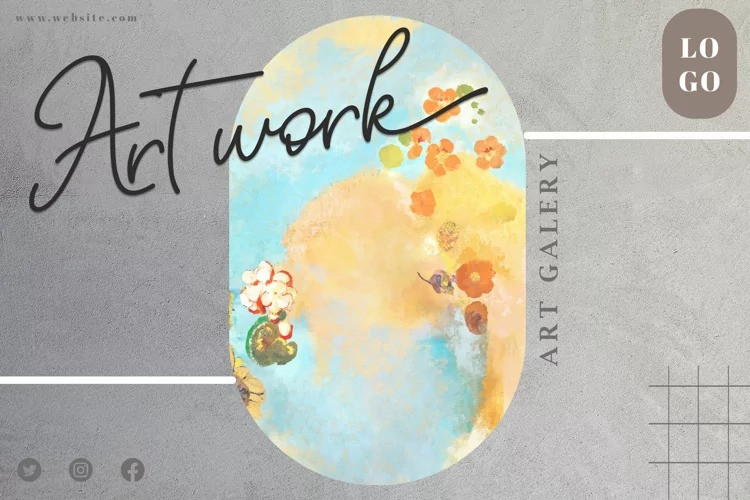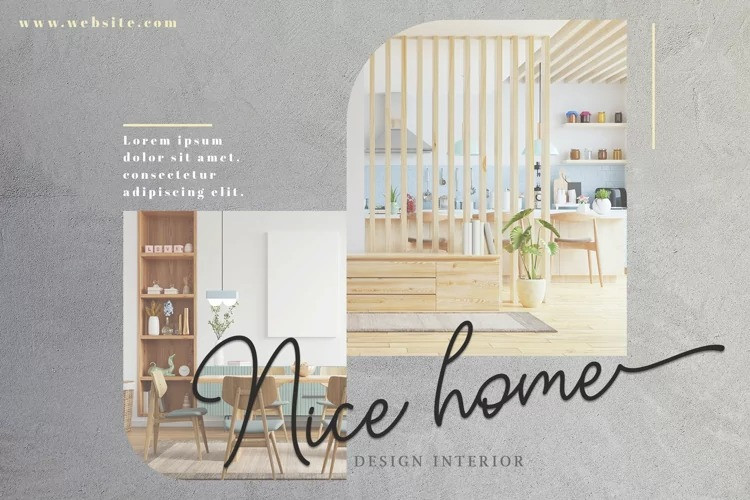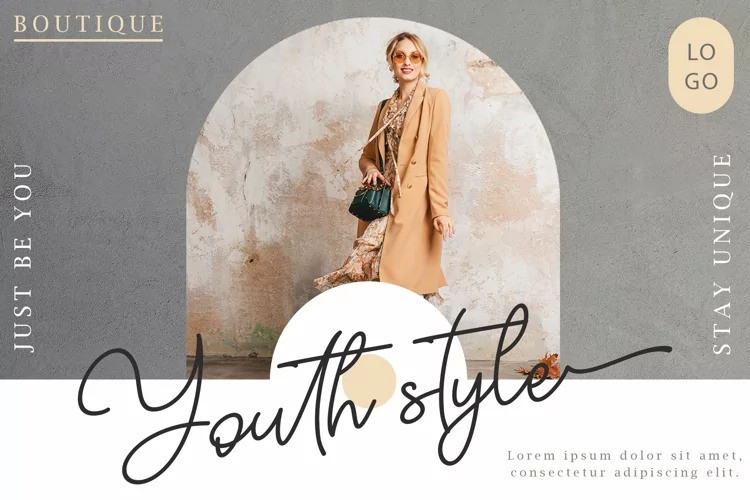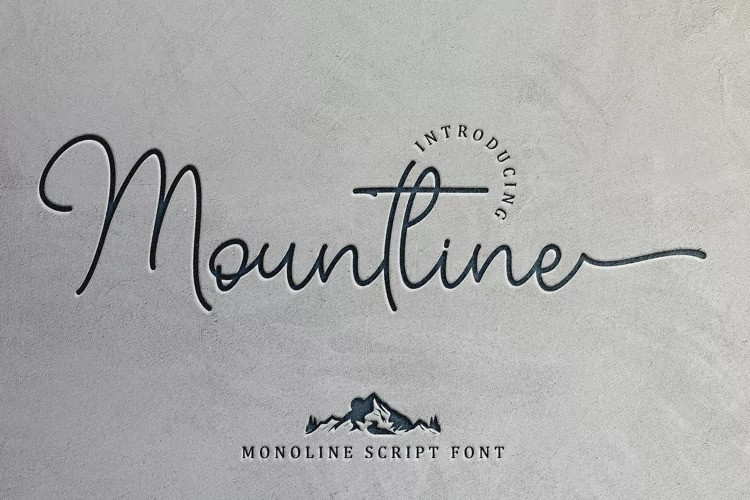
Mountline Handwritten Font
It’s a dazzling and timeless handwritten font manufactured by Sakha Design. Its distinct and well balanced letters make this font a masterpiece. This font is PUA encoded which means you can access all of the beautiful glyphs and swashes with ease!